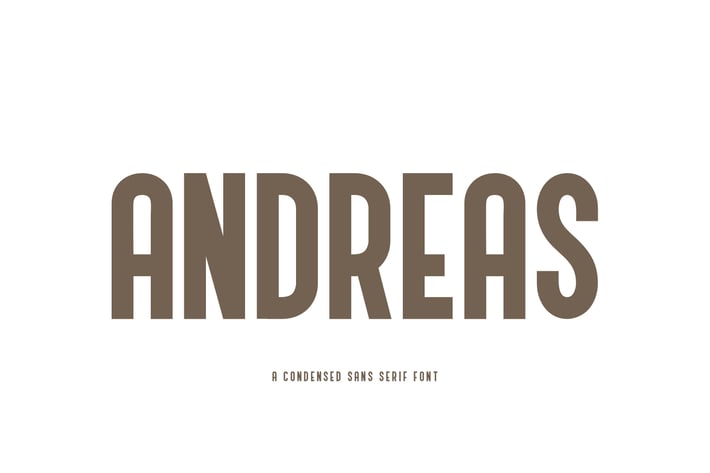
Andreas - A Condensed Sans Serif Font
Andreas - a condensed sans serif font. It has a elegant, classy look and modern. It’s a great font for fashion, apparel projects, signature, album cover, logo, branding, magazine, social media, & advertisements, but also works great for other projects.
- Standard glyphs (Uppercase, Lowercase, Numeral & Punctions)
- Fonts include multilingual support for; ä ö ü Ä Ö Ü ß ¿ ¡